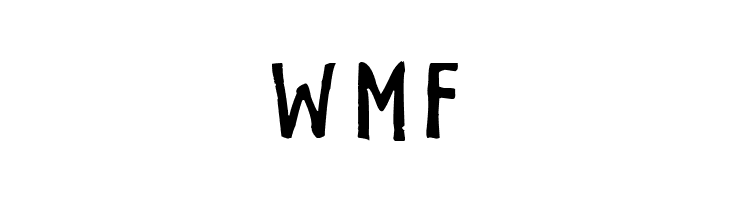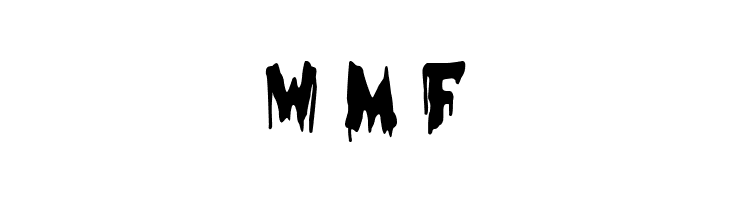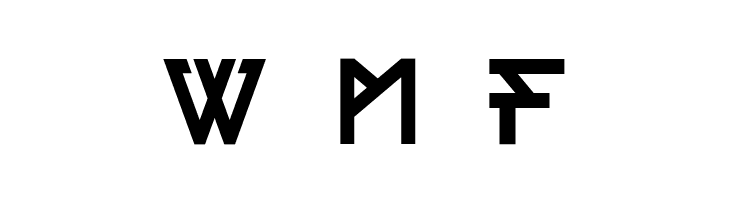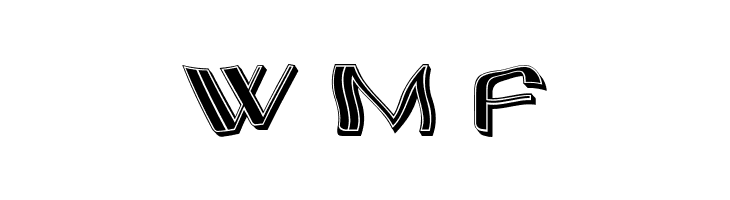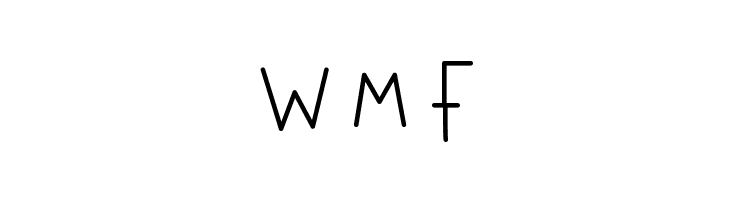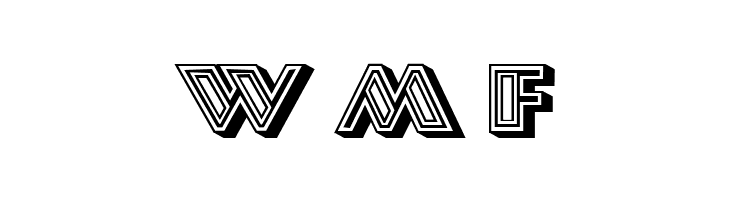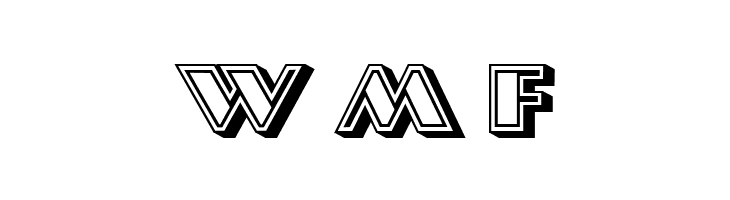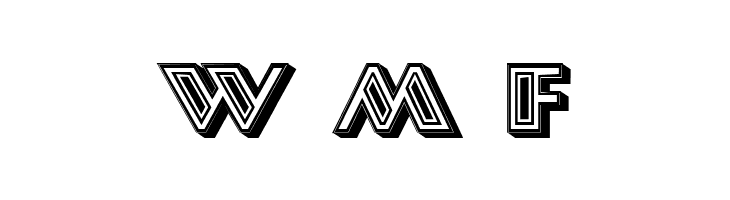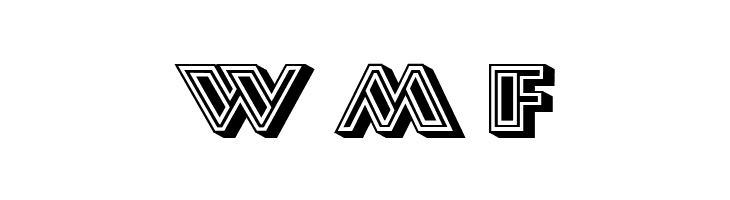
A bold, hand-drawn font with a rugged and organic style.
A spooky, dripping font perfect for Halloween themes.
A playful, bold font with rounded edges and a hand-drawn feel.
A bold, geometric typeface with sharp angles and clean lines.
A bold, retro-inspired font with a three-dimensional effect and vintage appeal.
A playful, hand-drawn font with tall, narrow letters and a whimsical style.
A bold, geometric font with a three-dimensional effect and intricate detailing.
A bold, decorative font with a hollow, 3D appearance and strong contrast.
A bold, geometric font with a 3D effect, perfect for striking headlines.
A bold, decorative font with a 3D effect and geometric precision.